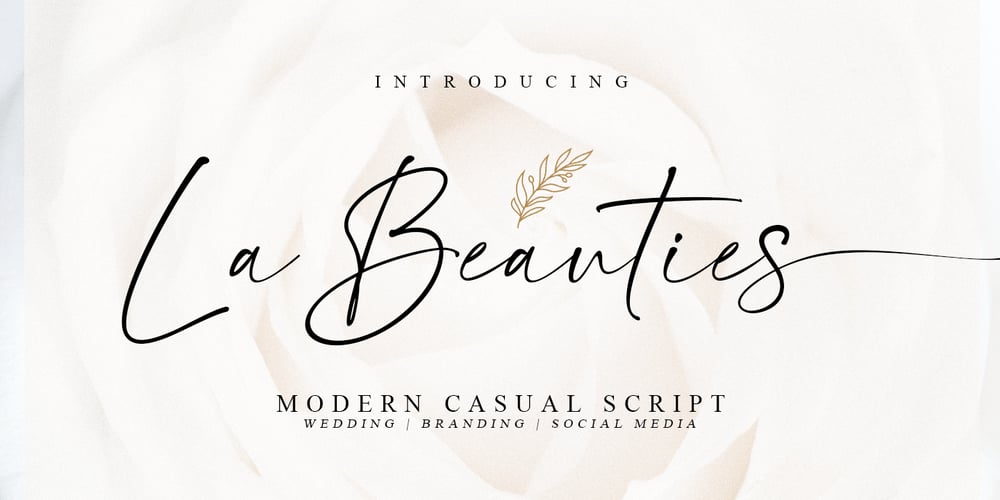
La Beauties
La Beauties Font Family was designed by Muhammad Mujibulloh and published by MJB Letters. La Beauties contains 1 styles and family package options. La Beauties is an original, casual and modern handwritten font that comes with a distinctive chic character that adds unique value to the font, perfect for branding, wedding invites cards, and more.La Beauties includes a full set of uppercase and lowercase letters, numeral, punctuations, and ligatures. The lowercase letterscompleted with beautiful beginning and ending swashesIncluded in this set: Works on PC & Mac Simple installations Accessible in Adobe Illustrator, Adobe Photoshop, Adobe InDesign, even work on Microsoft Word. PUA Encoded Characters – Fully accessible without additional design software